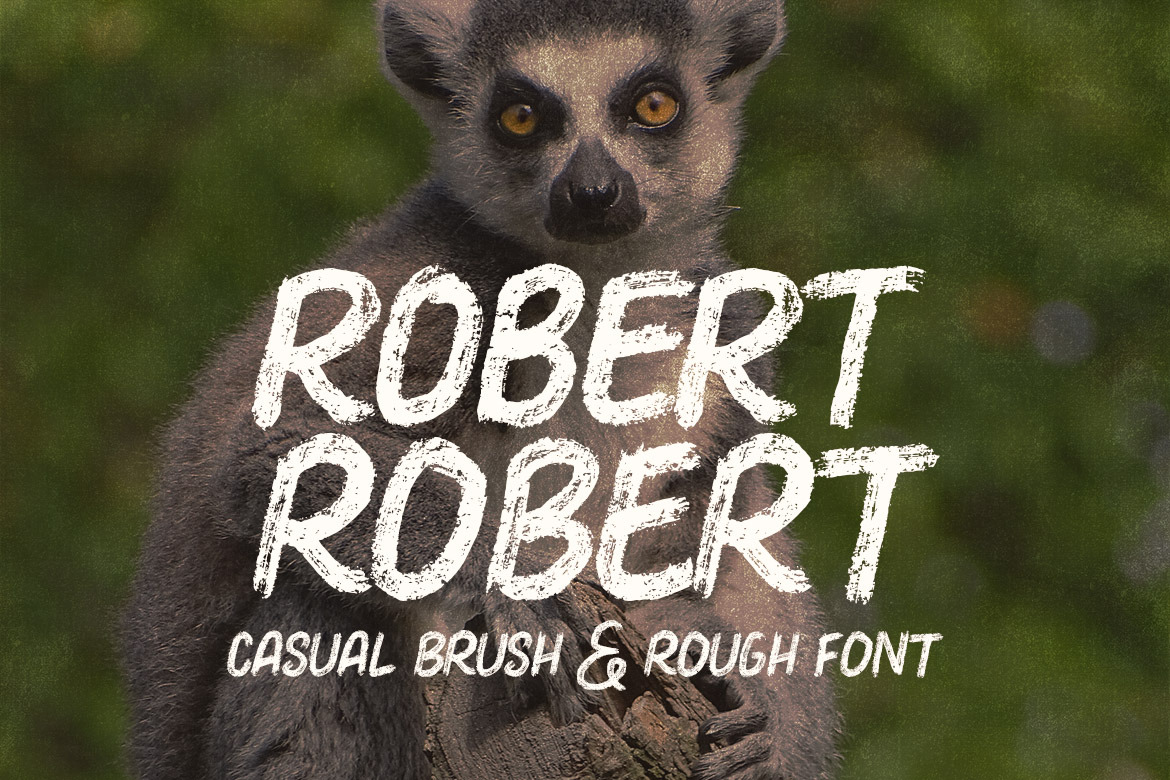
Robert Casual Brush Font
Casual, simple, rough, handwritten and brush sans serif font for your new projects. With multi language support and casual grunge style ;)
- multilingual support
- CAPS & CAPS alternates (small letters) + numbers & special characters